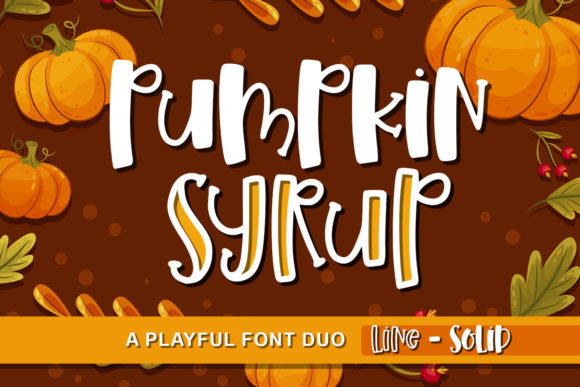
Behold, the Pumpkin Syrup Font: A Playful Masterpiece for Visual Storytellers
In a world teeming with conventional fonts, Pumpkin Syrup emerges as a captivating breath of fresh air, a font that dances with creativity and ignites imagination. Crafted by the visionary Abodaniel, this display font transcends the boundaries of ordinary typography, inviting you to embark on a journey of visual storytelling like never before.
With its mischievous curves and playful strokes, Pumpkin Syrup possesses an undeniable charm that captivates hearts and minds alike. Each letterform is a tiny work of art, meticulously designed to evoke a sense of lightheartedness and whimsy. Whether you're a seasoned designer or just starting your creative journey, this font is your passport to a world where your imagination roams free.
Picture this: Your designs adorned with the Pumpkin Syrup Font, radiating a vibrant energy that draws eyes like a magnet. Imagine your T-shirts, posters, and social media graphics pulsating with life, exuding a personality that resonates with your audience. This font is your secret weapon to cut through the noise and make a lasting impression.
Step into the spotlight with Pumpkin Syrup, the font that transforms ordinary words into captivating narratives. Whether you're crafting logos, branding materials, or simply adding a touch of whimsy to your personal projects, this font is your trusty companion, ready to elevate your creations to new heights.
Don't settle for mundane fonts that blend into the background. Embrace the Pumpkin Syrup Font, a font that dances to its own rhythm, ignites conversations, and leaves an unforgettable mark on your audience. Unleash your creativity and let this playful font guide you to typographic greatness.